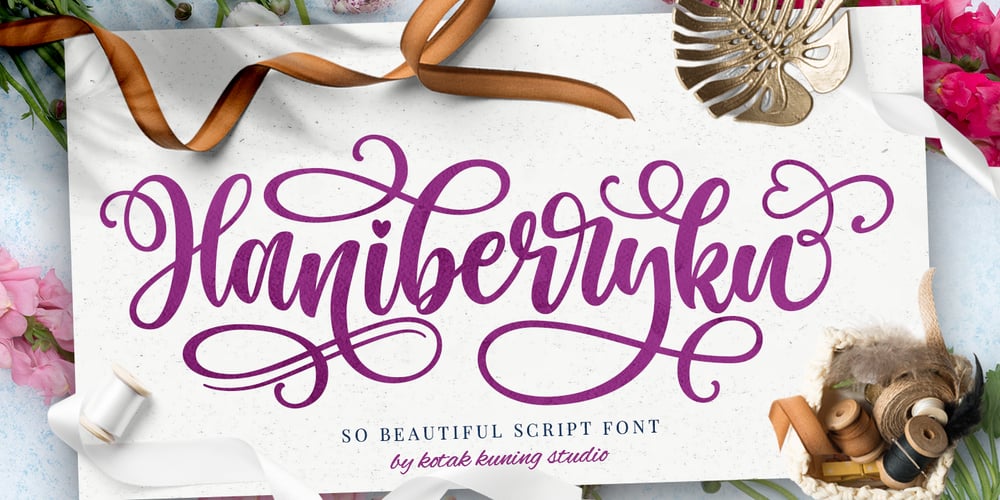
Haniberryku
Haniberryku font
Haniberryku Font Family was designed by Arif Dwi and published by Kotak Kuning Studio. Haniberryku contains 1 styles and family package options. Haniberryku is a lovely modern script font with a natural & stylish flow. Perfect for making elegant stylish statements – or adding a touch of class to your designs. This script has a multitude of lovely alternates character in its OpenType features – making the font look a beautiful.Haniberryku is perfect for many different projects such as logos & branding, invitation, stationery, wedding designs, social media posts, advertisements, product packaging, product designs, label, photography, watermark, special events or anything.I highly recommend using a program that supports OpenType features and Glyphs panels such as Adobe Illustrator, Adobe Photoshop CC, Adobe InDesign, or CorelDraw, so you can see and access all Glyph variations.We hope you enjoy the font, please feel free to comment if you have any thoughts or feedback. Or simply email me at kotakkuningstudio@gmail.com. Thanks for purchasing and have fun!